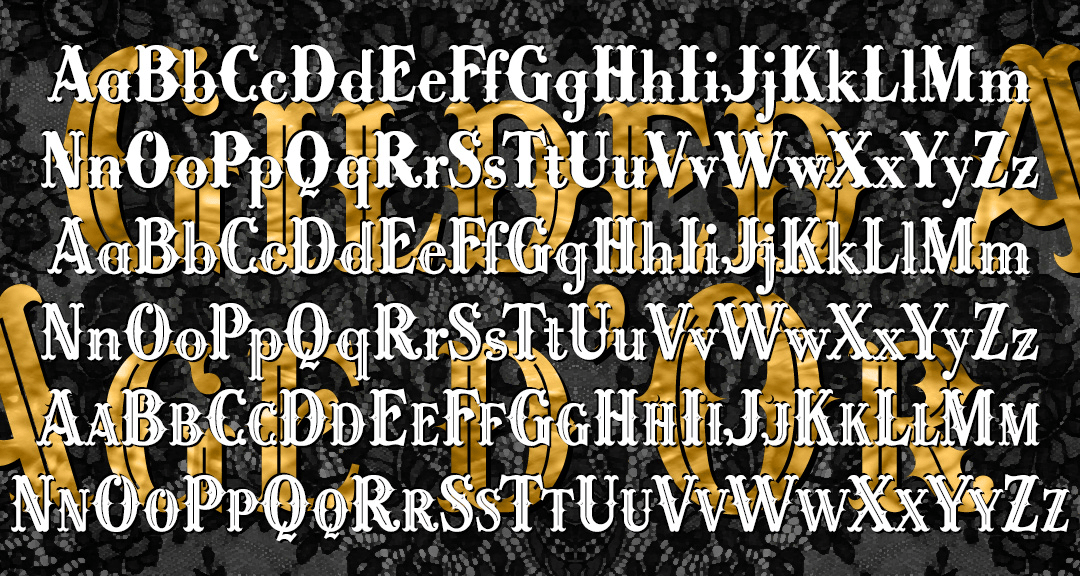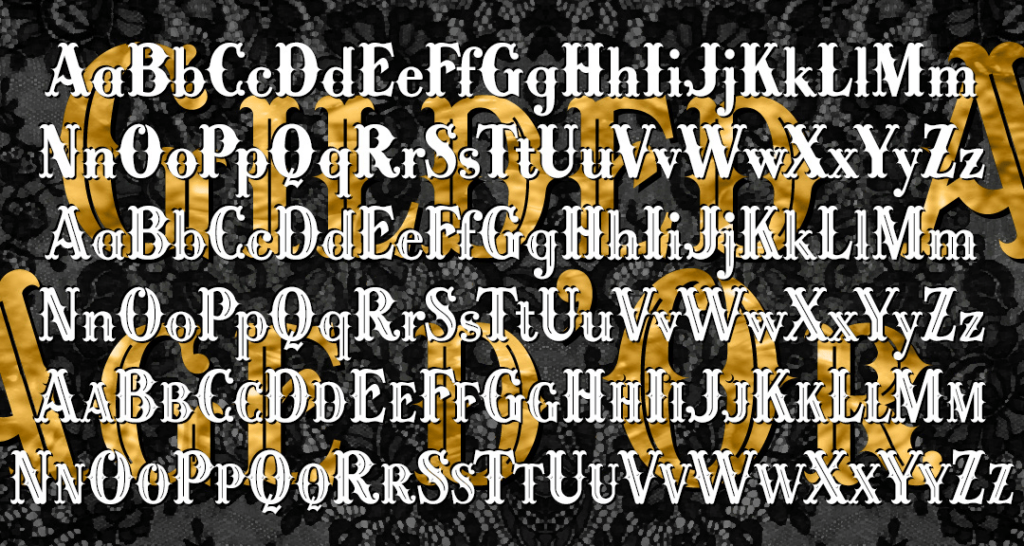
Gilded Age
About Gilded Age
GILDED AGE is a set of ornate fonts with decorative details reminiscent of that period, the late 19th century in the US. Tricked out with "mustachio" serifs, spurs, and inlines, Gilded Age captures the flashy ornamentation the name suggests.…